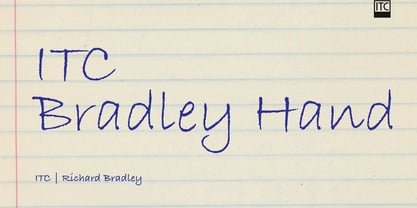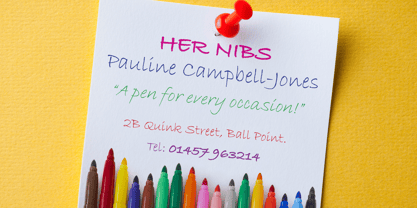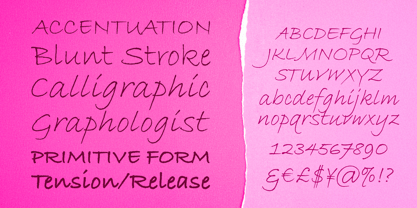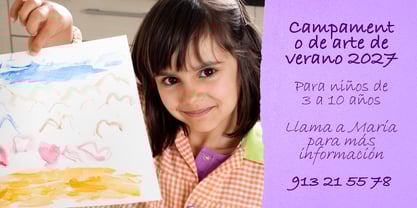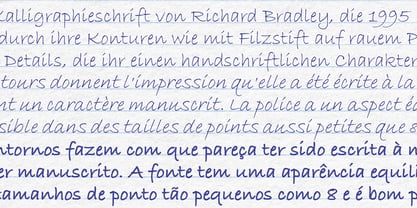
ITC Bradley Hand™
by ITC
The ITC Bradley Hand Font Family was designed by Richard Bradley and published by ITC. ITC Bradley Hand contains 3 styles and family package options.
ITC Bradley Hand is a calligraphy font from Richard Bradley, designed in 1995. The contours make it look as though it were written by hand with a felt tip pen on rough paper and it has all the details which give it a handwritten character. The font has a balanced, harmonious look and lends correspondence a personal touch. Bradley Hand is legible in point sizes as small as 8 and is good for headlines and short to middle length texts.